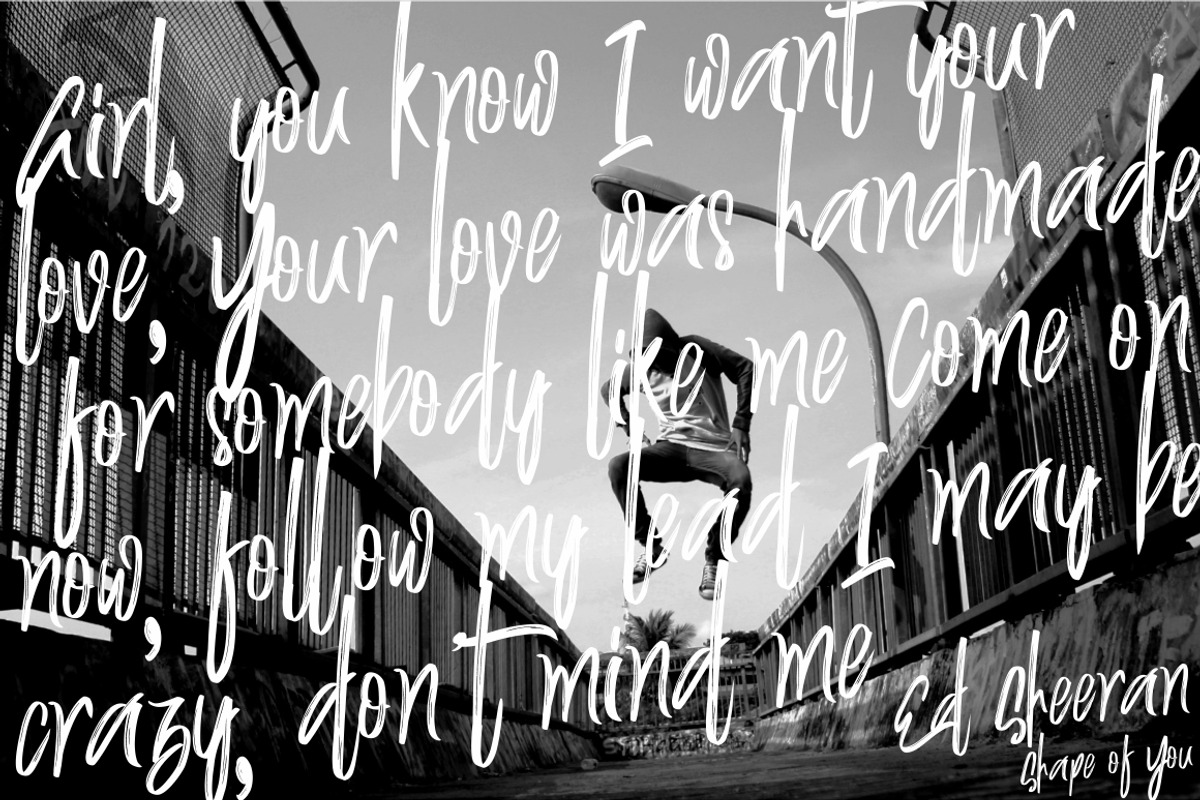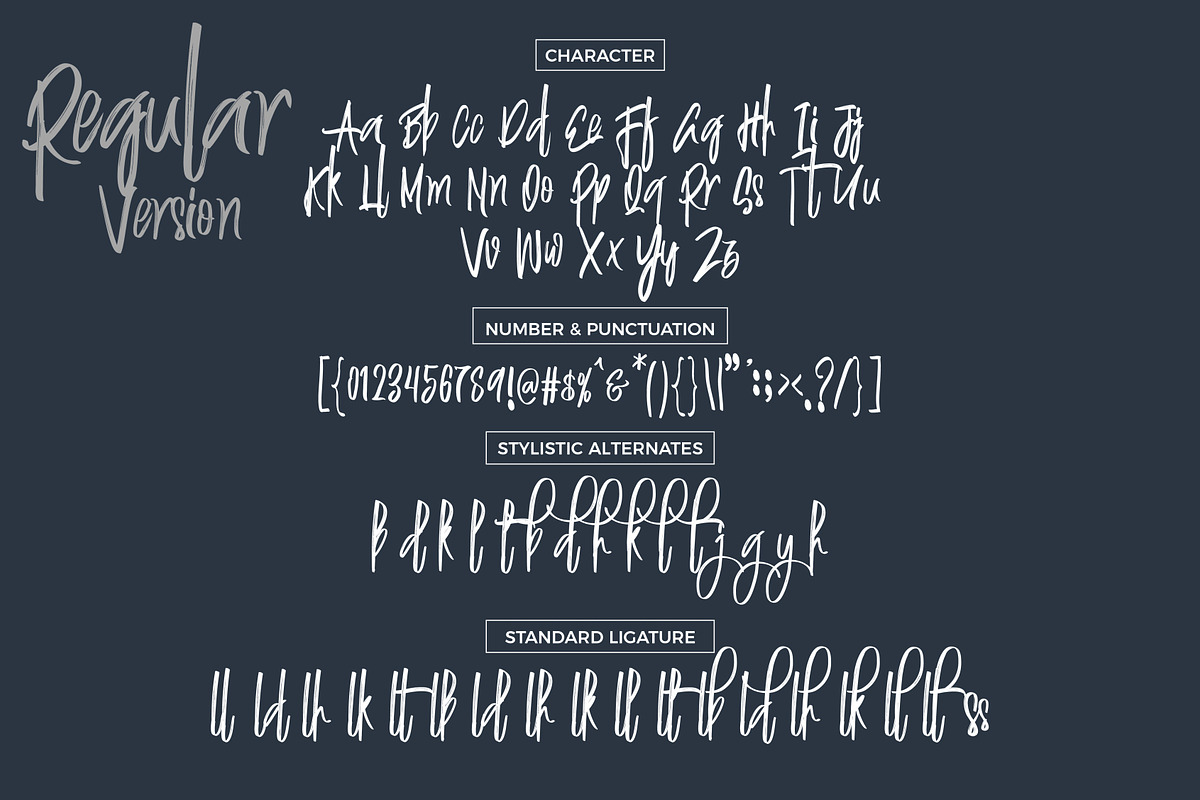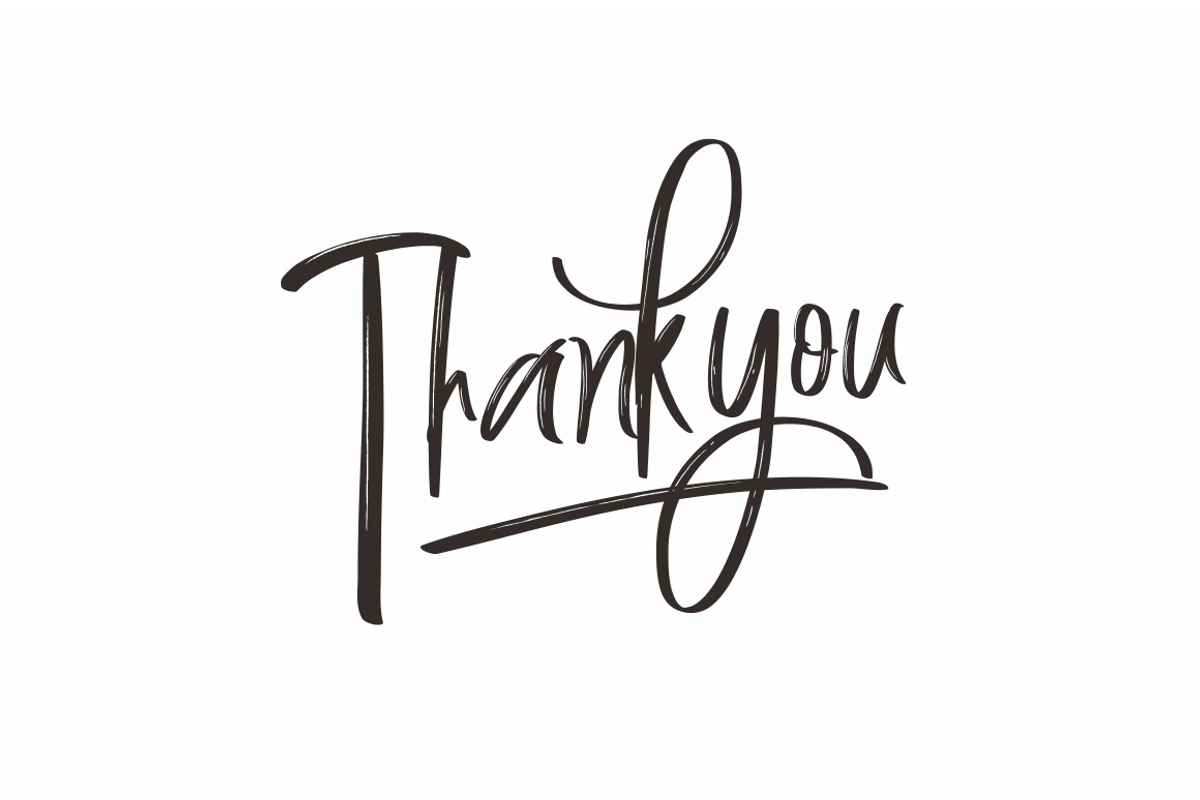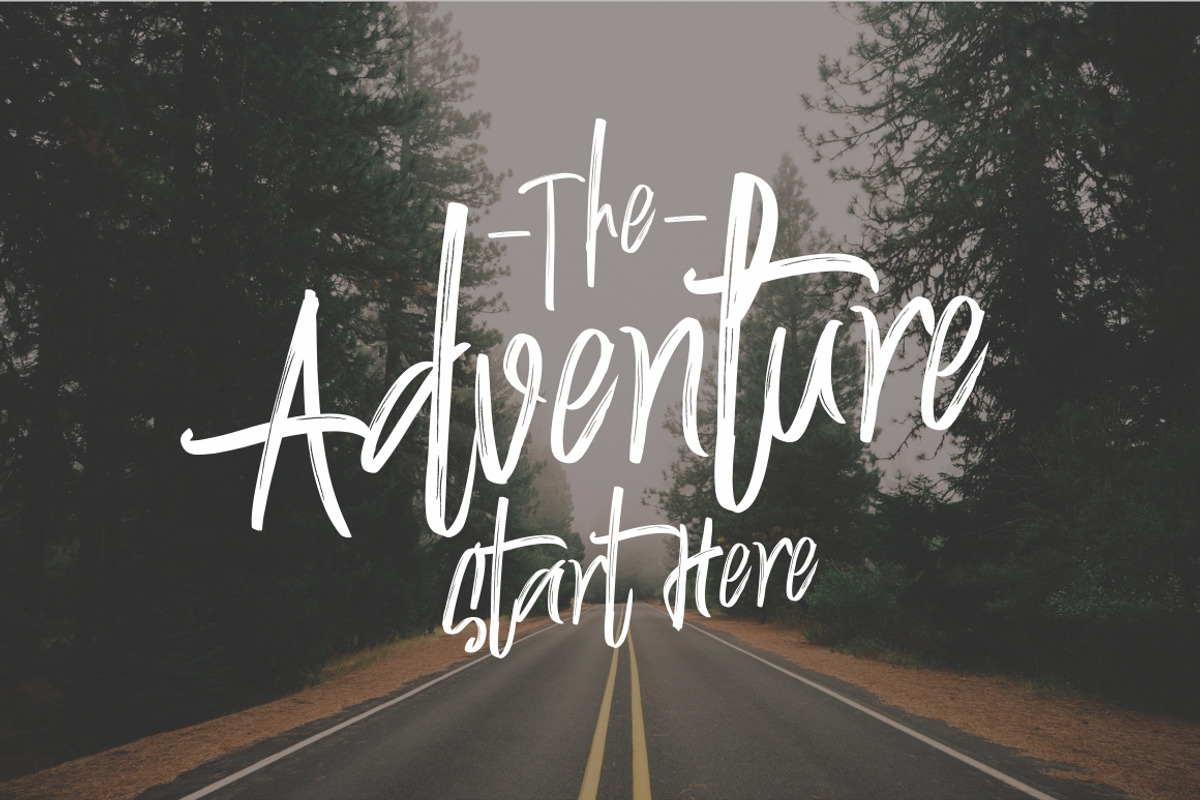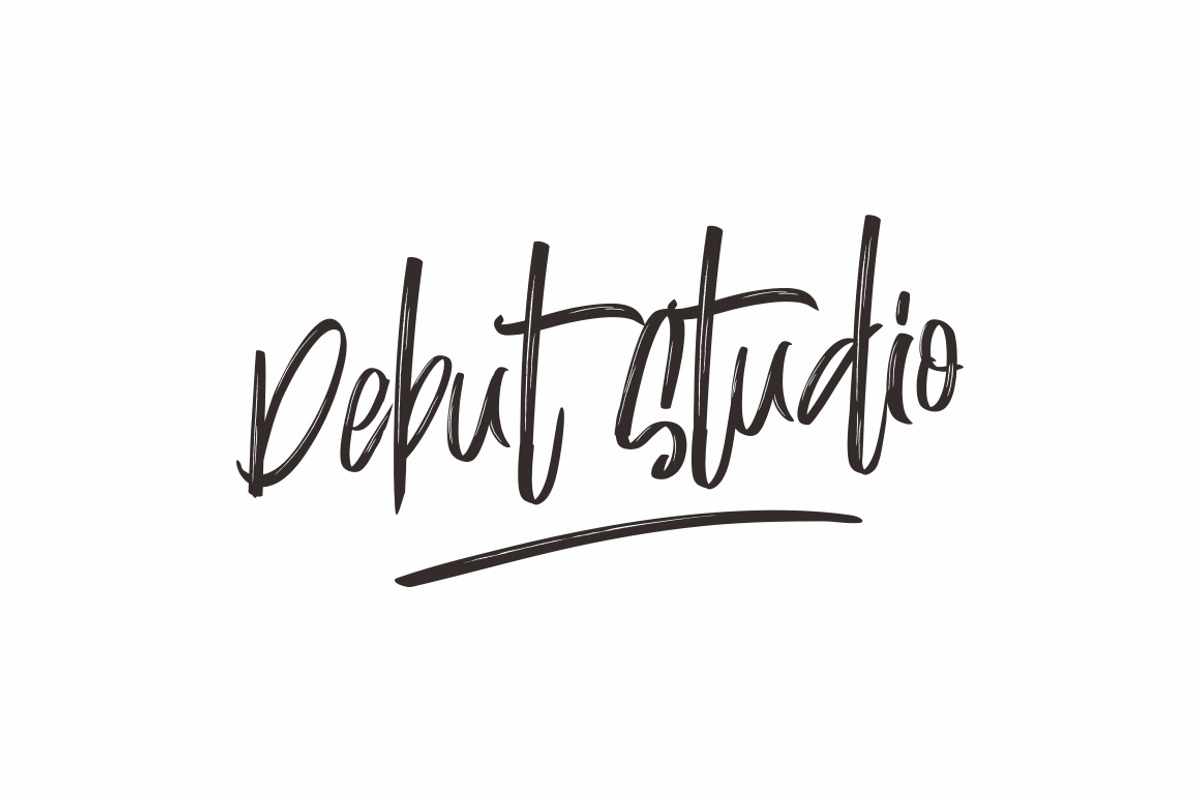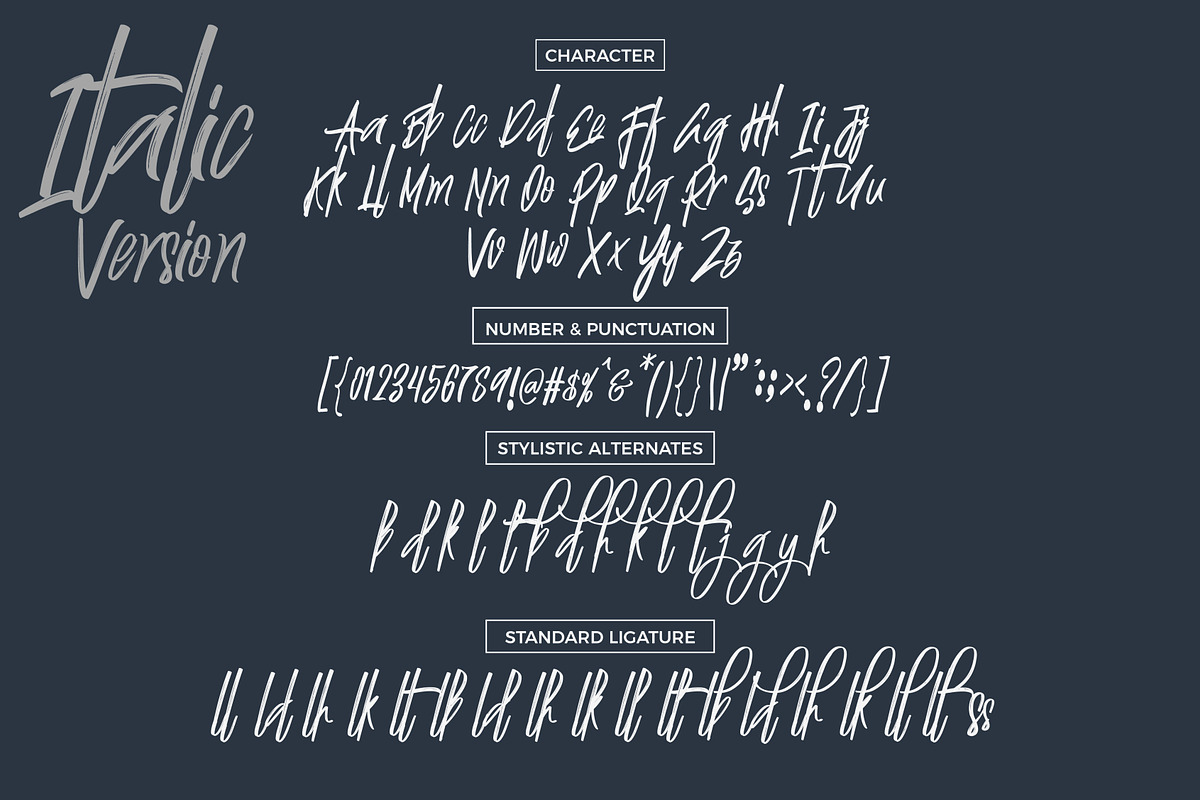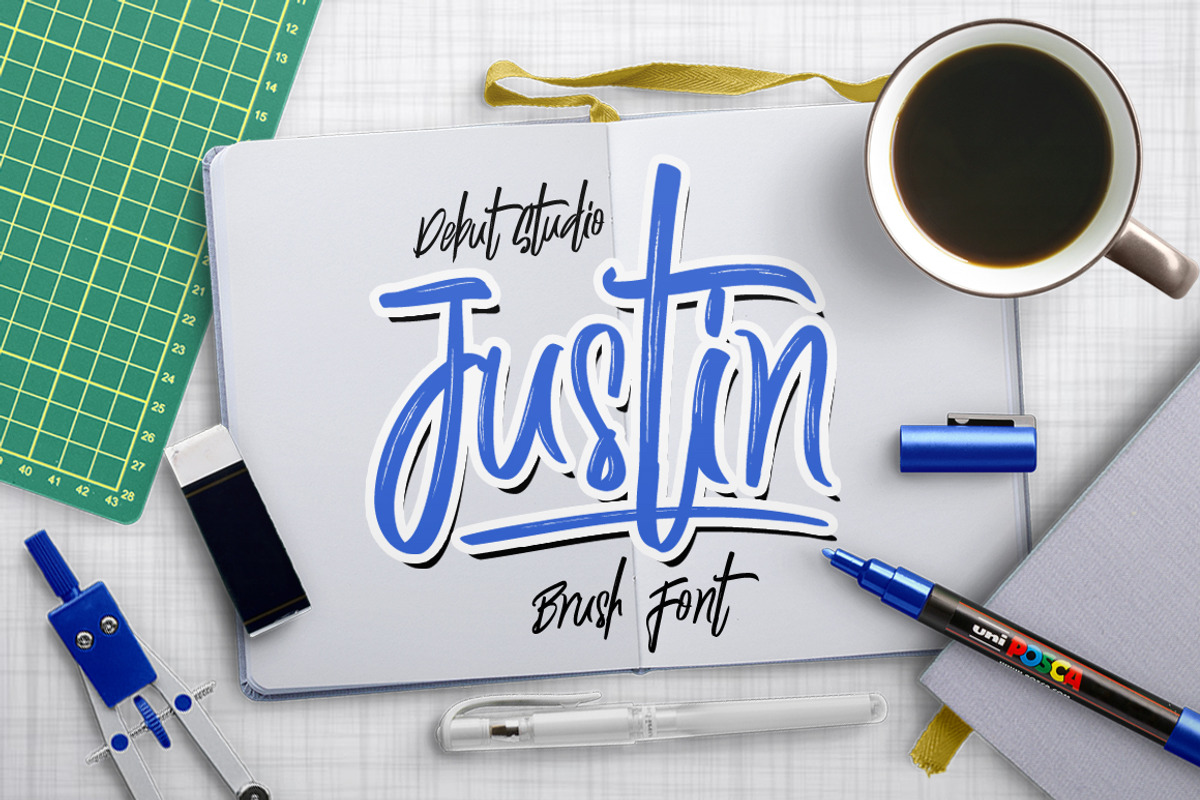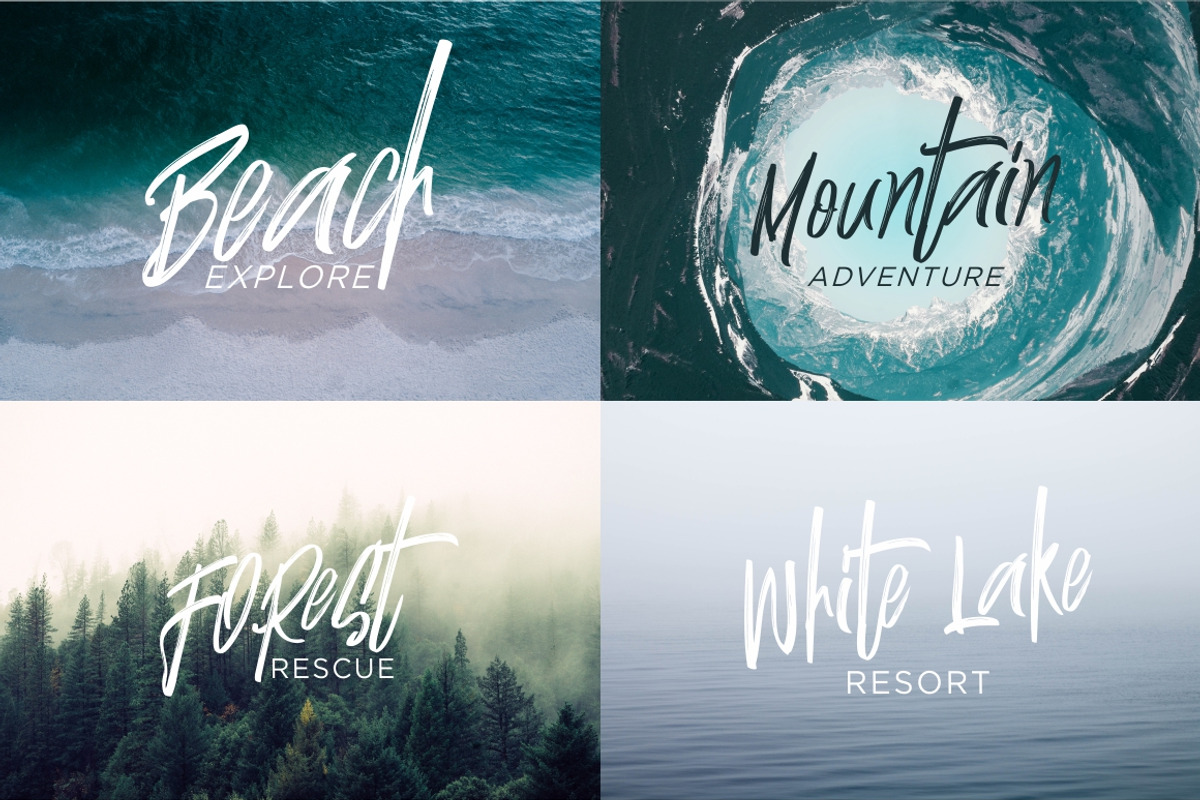
Justin Brush Font
Introducing my new Calligraphy, Justin Brush Font This font is my own handmade, I made it using a brush pen, so the fibers of the writing look more beautiful. this handwriting I make into a font for those of you who like free style in designing. It is suitable for those of you who like free style fonts for design purposes such as T-shirts, branding, lettering, brochures, and other design purposes.
Why Justin Brush Font is worth a look
Justin Brush Font by Debut Studio fits naturally into Branding, posters, packaging, typography.